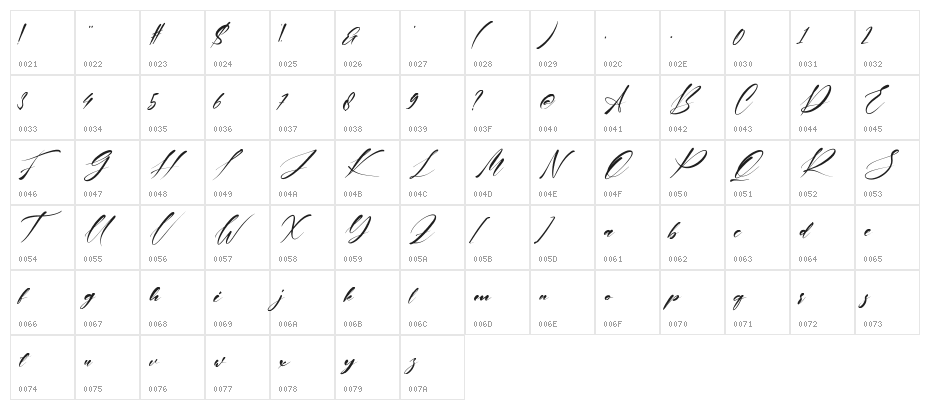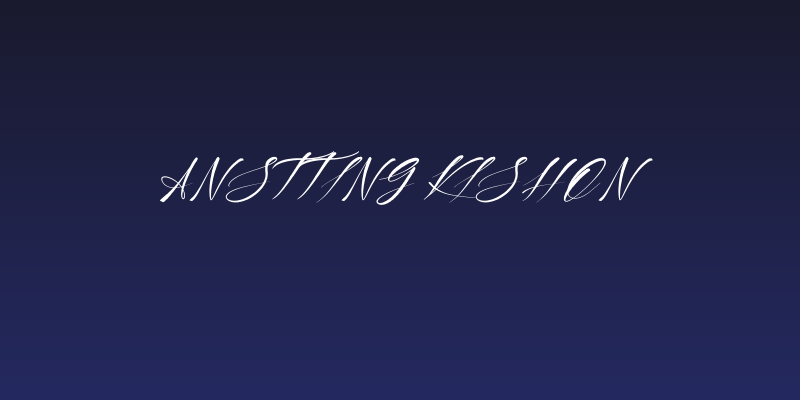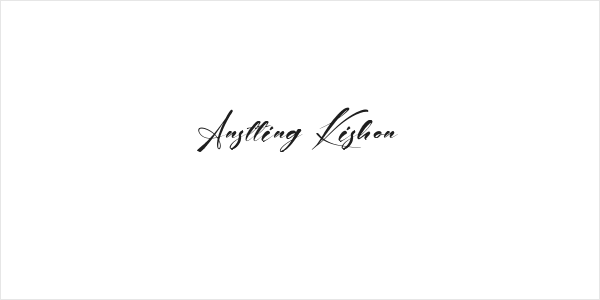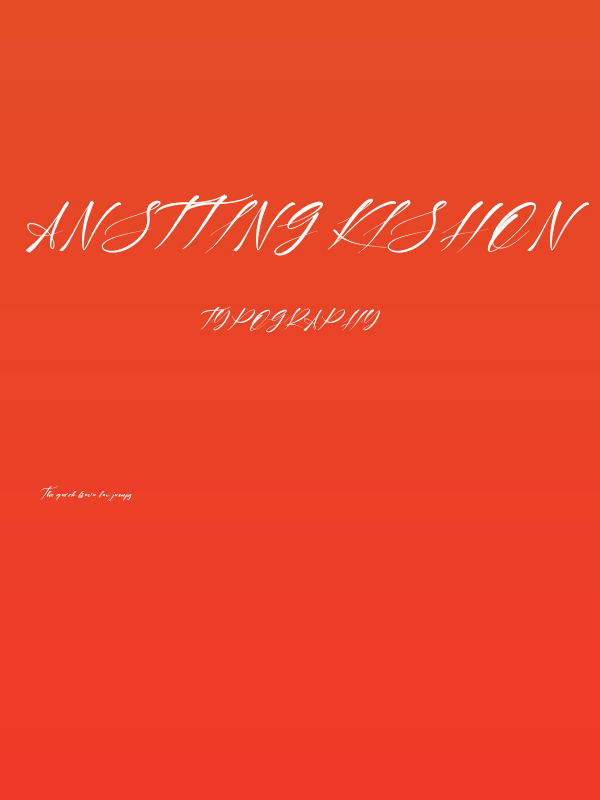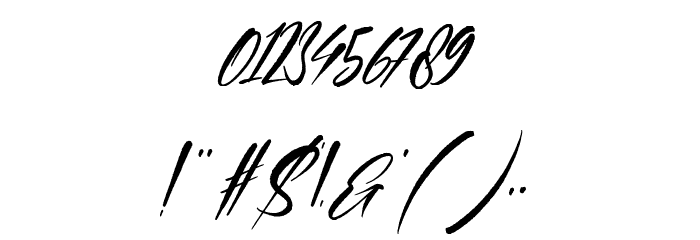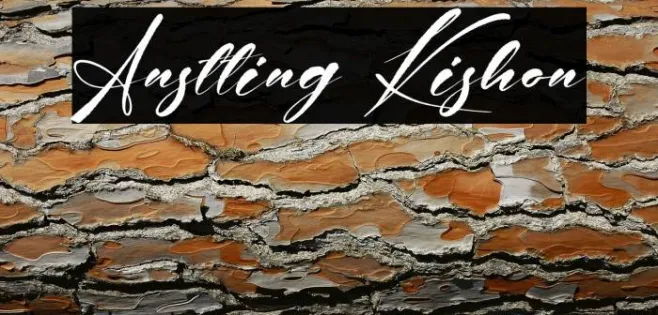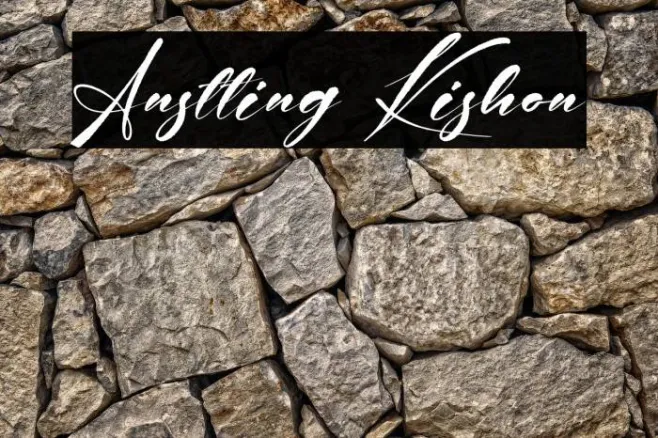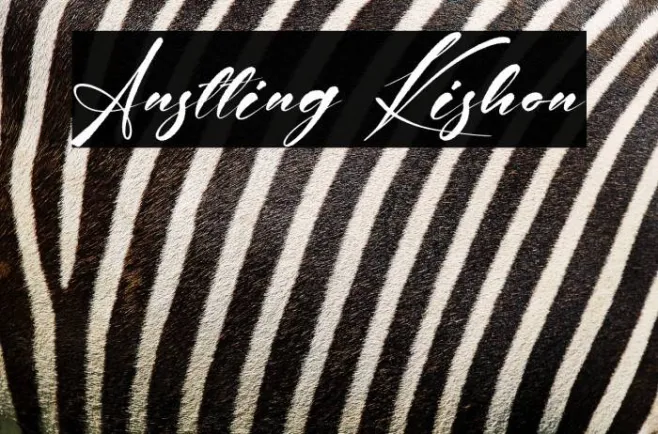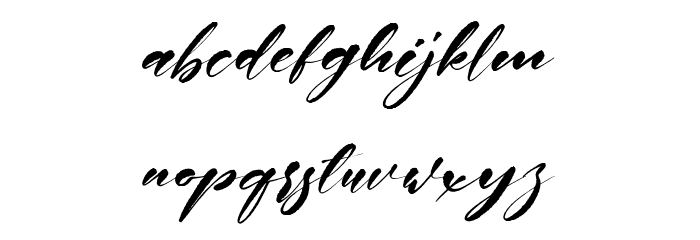
Anstting Kishon Font
Anstting Kishon Description
This font features an elegant and flowing script style, characterized by its fluid, cursive strokes and graceful curves. The uppercase letters exhibit a sophisticated flair with elongated ascenders and descenders, creating a sense of movement and dynamism. The lowercase letters maintain a consistent flow, enhancing readability while preserving the artistic quality. Numbers and special characters are designed with the same attention to detail, ensuring a cohesive look across all elements. The overall appearance is both stylish and refined, making it suitable for projects that require a touch of elegance.